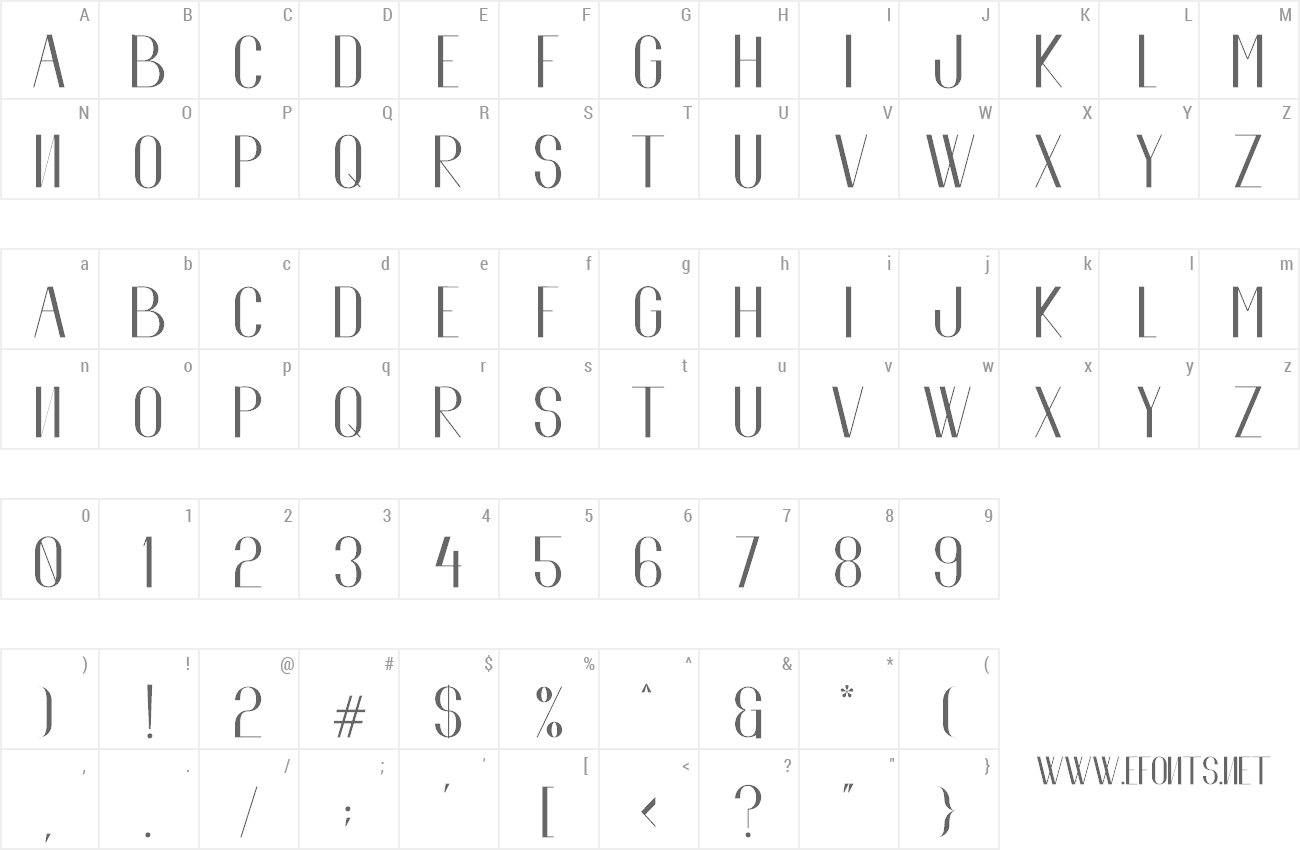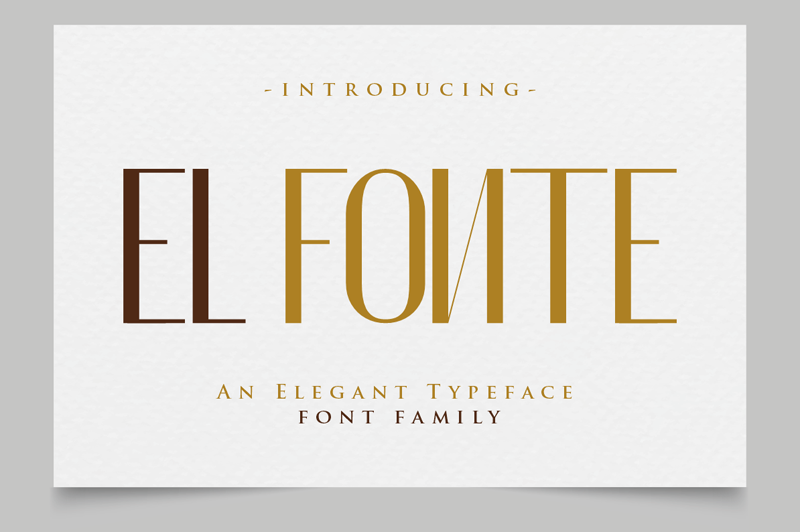
Preview and download El Fonte Font. Created by Gilar Studio in Basic Serif styles with Free for personal use license.
Introducing El Fonte - An Elegant Typeface Font Family ! El Fonte is a Minimalist Modern Elegant font . It's a very versatile font that works great in large and small sizes. Already matched up and ready to be used together for your next design! For those of you who are needing a touch of elegant, stylish, classy, chic and modernity for your designs, this font was created for you! El Fonte is perfect for branding projects, Logo design, Clothing Branding, product packaging, magazine headers, or simply as a stylish text overlay to any background image. The OpenType features can be very easily accessed by using OpenType-savvy programs such as Adobe Indesign, Adobe Illustrator CS, Adobe Photoshop CC, and Corel Draw (You can also access most most of these features in Microsoft Word and other similar programs, but you'll need to get comfortable with the advanced tab of Word's font menu. If you need help with this, ask me!) If you need to access all glyphs with a character map, you will need to contact me after purchase for a special file. Files included: -El Fonte regular (Otf,Ttf,Woff) -El Fonte italic (Otf,Ttf,Woff) -El Fonte Bold (Otf,Ttf,Woff) -El Fonte Bold Italic (Otf,Ttf,Woff) -El Fonte Hollow (Otf,Ttf,Woff) -El Fonte Hollow Italic (Otf,Ttf,Woff) Features: -6 Style Font Family -All caps -Stylistic Alternates & Ligatures -Numerals & Punctuation -Format File: TTF,OTF, Web -Accents/Multilingual characters See Full Version Here : https://www.creativefabrica.com/product/el-fonte/ref/236330 More... |